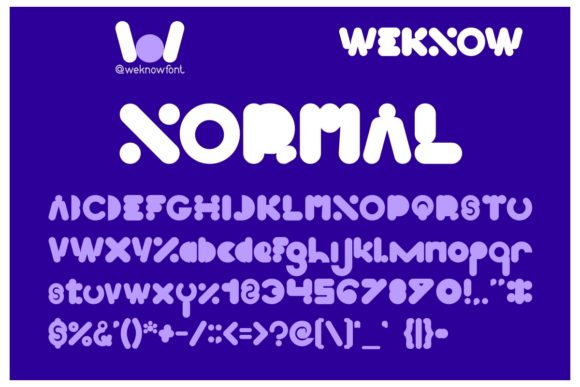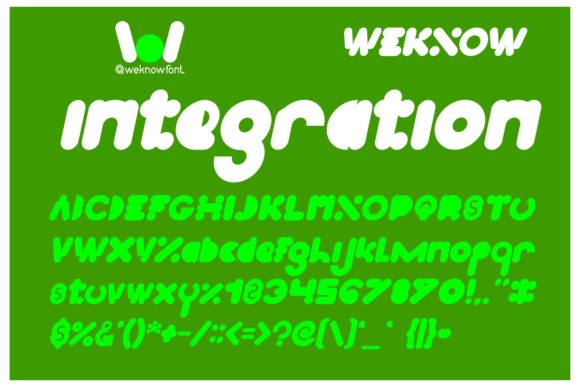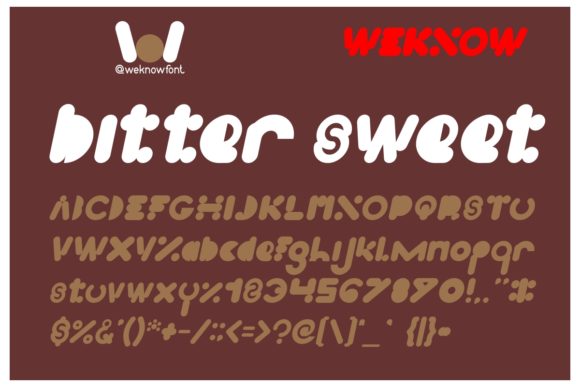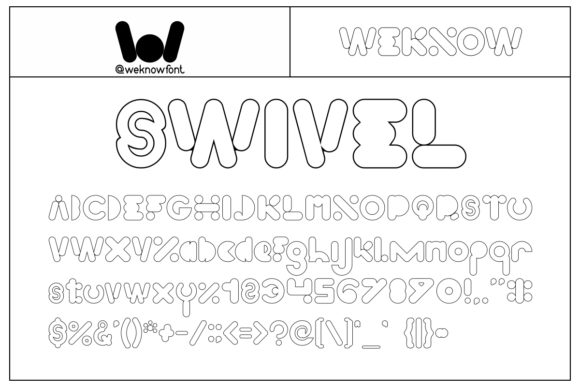
The Designer’s Delight: High Logic Font
I’ll never forget the time I was working on a logo design project for a tech startup, and I just couldn’t find the right font. The client wanted something modern, playful, and abstract, but also professional and legible. I scoured the internet, tried countless fonts, but nothing seemed to fit the bill. That was until I stumbled upon High Logic, a techno font that has since become one of my go-to’s for any project that requires a dash of fun and sophistication.
- ✨ Unique and abstract style that’s perfect for logos, branding, and advertising
- 🎉 Extensive OpenType features, including glyphs and stylistic alternates
- 💻 Suitable for a wide range of applications, from apparel to posters, movies, games, and magazines
While High Logic is an amazing font, it’s not perfect. Here are a few things to keep in mind:
- 🤔 Some characters may not work well in all contexts, so be sure to test and adjust as needed
- ⚠️ The font’s abstract style may not be suitable for very formal or traditional designs
The Designer Inspiration Behind High Logic
High Logic was designed with the goal of creating a font that was both futuristic and approachable. The designer wanted to create a font that would be perfect for tech companies, startups, and innovative brands looking to make a statement. With its abstract and playful style, High Logic is the perfect choice for any project that requires a dash of personality and sophistication.
Q: What type of projects is High Logic best suited for?
A: High Logic is a versatile font that can be used for a wide range of projects, including logos, branding, apparel, posters, movies, games, and magazines.
Q: Is High Logic easy to read?
A: Yes, High Logic is highly legible, even at small sizes. Its abstract style is designed to be visually interesting without sacrificing readability.
Q: Does High Logic support OpenType features?
A: Yes, High Logic supports a range of OpenType features, including glyphs and stylistic alternates. These features can be accessed through compatible software, such as Adobe Creative Cloud apps.